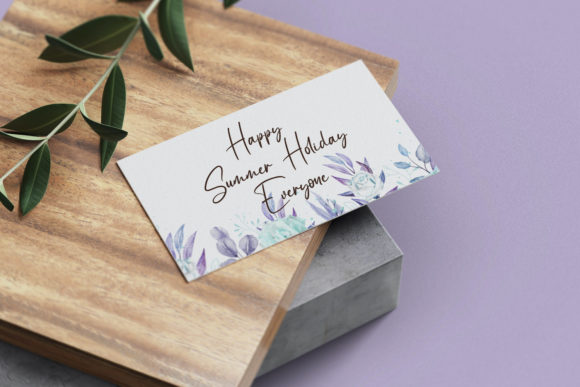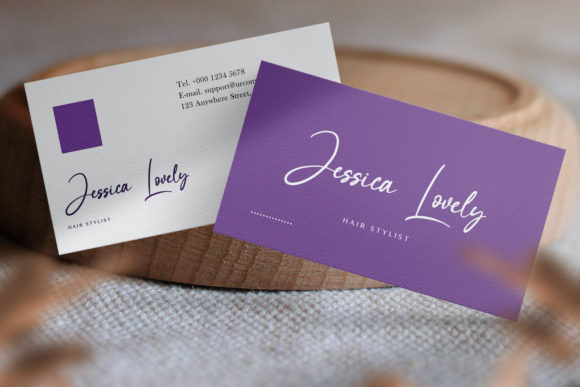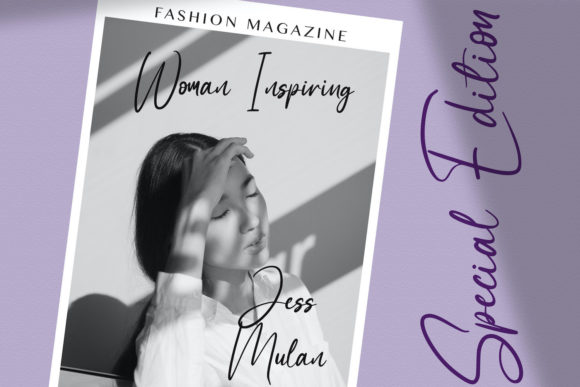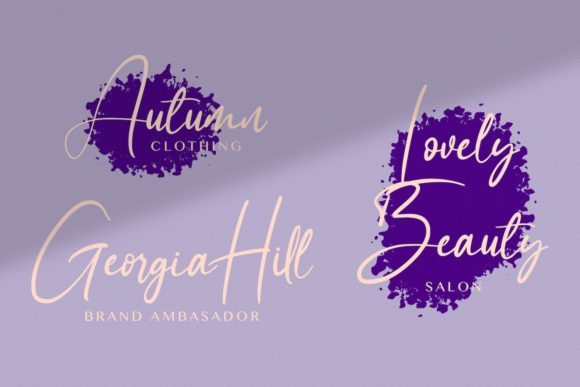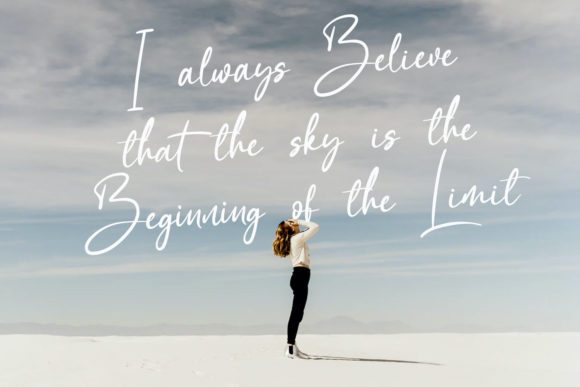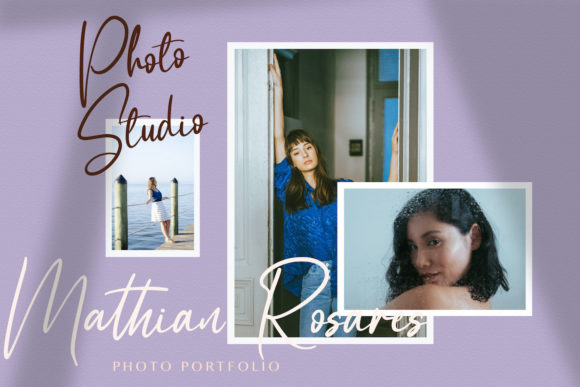
Introduction to Sandy Lailyatir Font
Have you ever been on a creative high, brainstorming ideas for a new project and suddenly, a design concept comes together in your mind? It’s a rush of excitement and inspiration that drives us to bring our visions to life. For designers, it’s moments like these that make all the hard work worth it. And, what if you had a versatile and elegant font to help you elevate your designs to the next level?
That’s where the Sandy Lailyatir Font comes in – a delicate and cursive script font that adds a personal touch to any design. With its high-quality design and transparent background, it’s a valuable resource for designers looking to create stunning visuals. Whether you’re working on a free download or a high-end creative project, Sandy Lailyatir Font is sure to make your designs stand out.
Key Features of Sandy Lailyatir Font
- High-quality design resource ideal for creative projects, with a unique and elegant style.
- Features a high-resolution design, suitable for use in print and digital applications.
- Unique characteristics include intricate details and subtle nuances, adding depth and visual interest to designs.
Honest Review: Sandy Lailyatir Font
I recently came across the Sandy Lailyatir Font, and I must say, it’s been a great addition to my design resource library. The font is free to download, which is a major plus for designers working on a budget or starting a new creative project.
One of the standout features of the Sandy Lailyatir Font is its high-quality design. The font is clean, elegant, and versatile, making it suitable for a wide range of design applications. The transparent background is also a nice touch, allowing designers to easily layer the font over other design elements.
- ⚠️ Limited font styles and weights available
- ⚠️ Not ideal for use in extremely small text sizes
Overall, I’m impressed with the Sandy Lailyatir Font. While it may not be perfect, its high-quality design and transparent background make it a valuable resource for designers. With a little creativity, this font can help elevate your next creative project.
Sandy Lailyatir Font
The Sandy Lailyatir Font is ideal for various design projects, including brochures, posters, business cards, and social media graphics. Its unique aesthetic and high-quality design make it a popular choice among designers and creatives.
Alternatives to Sandy Lailyatir Font
Great Vibes Font is a beautiful, handwritten script font that’s perfect for creative projects requiring a touch of elegance. It’s available for free download and is ideal for designs that need a high-quality, hand-written feel. Great Vibes Font has a transparent background, making it easy to use on any background.
Compared to Sandy Lailyatir Font, Great Vibes Font has a more elegant and refined look, making it suitable for projects that require a touch of sophistication. It’s also more versatile and can be used for a wide range of designs, from wedding invitations to magazine headers.
Alex Brush Font is a luxurious, handwritten font that’s perfect for high-end designs. It’s available for free download and has a transparent background, making it easy to use on any background. Alex Brush Font is ideal for creative projects that require a touch of luxury and sophistication.